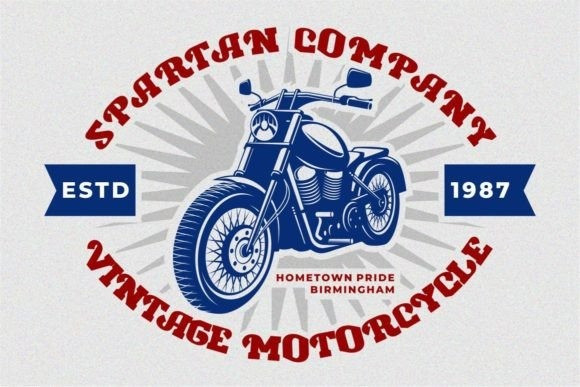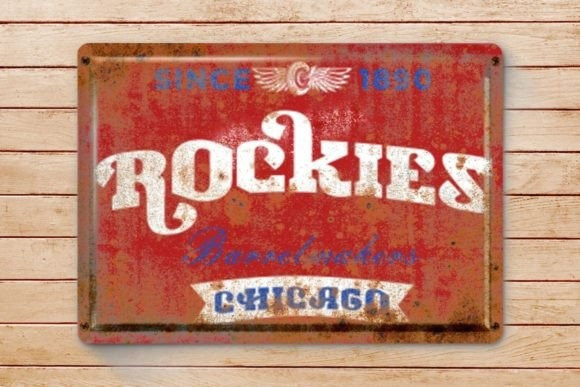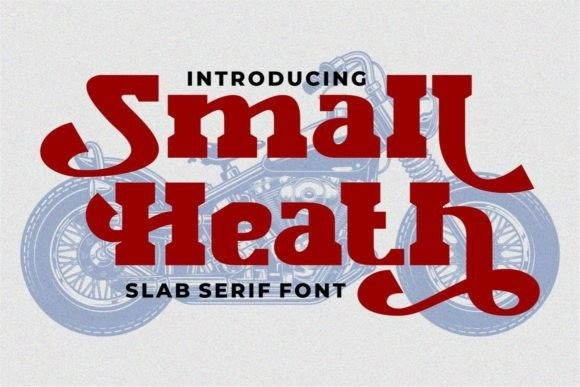
Small Heath Font
Small Heath Slab Serif Font is a cool and unique slab serif font. Masterfully designed to become a true favorite, this font has the potential to bring each of your creative ideas to the highest level! Small Heath is PUA encoded which means you can access all the glyphs and ligatures with ease!